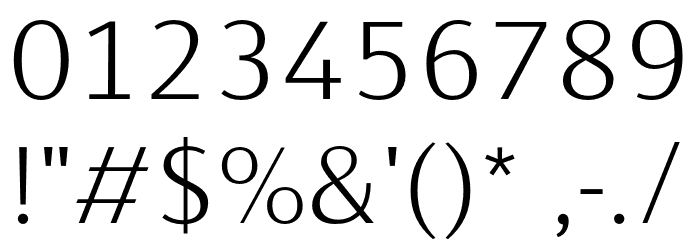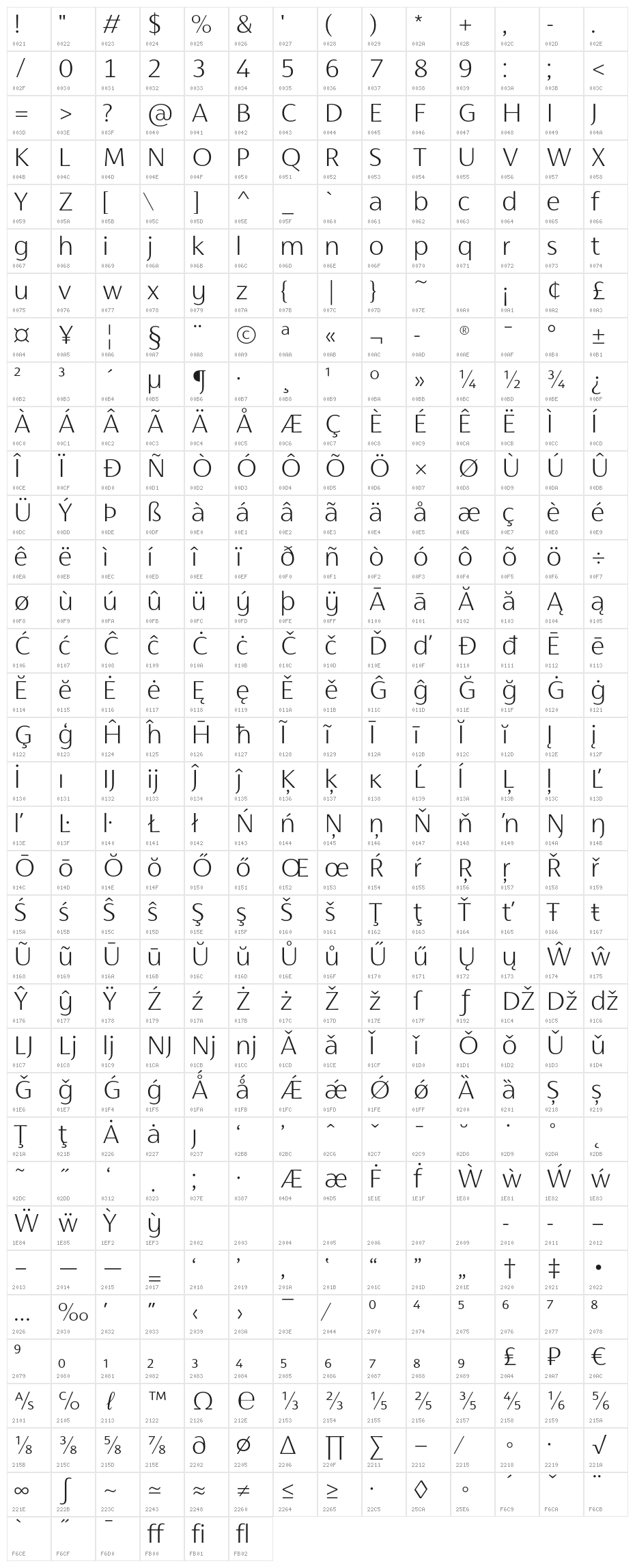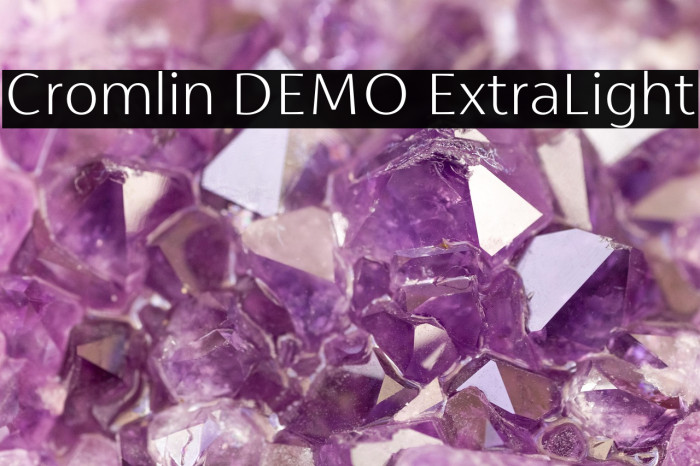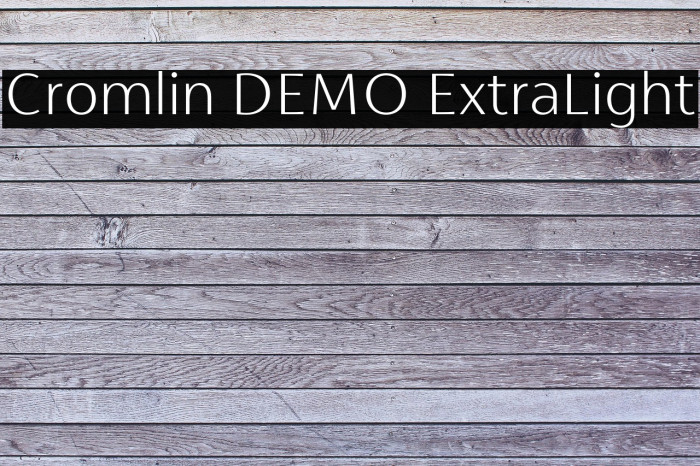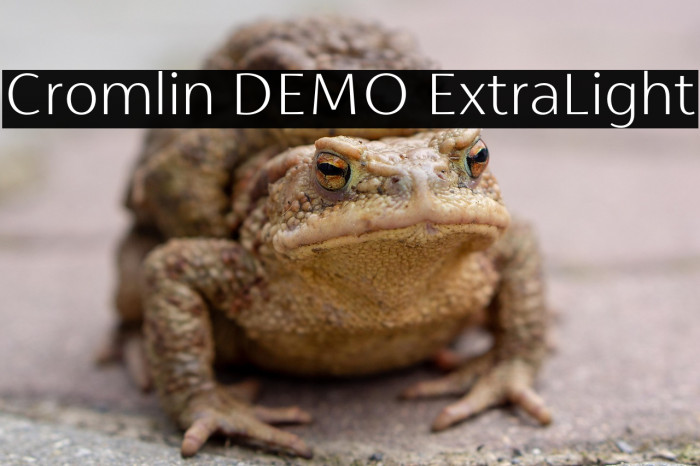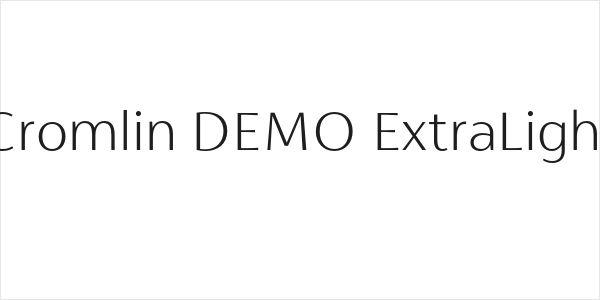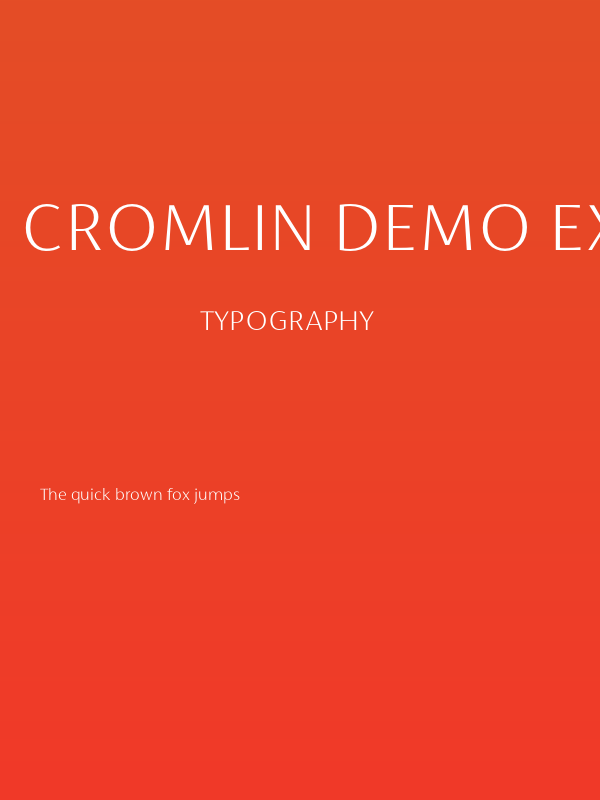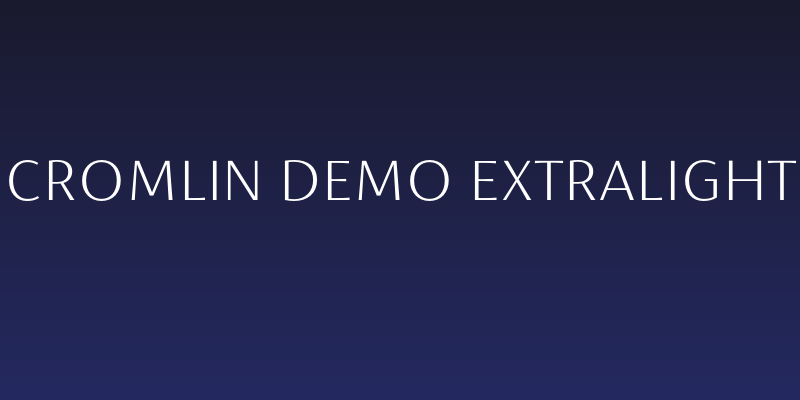
Cromlin DEMO ExtraLight Font
Cromlin DEMO ExtraLight Description
This font features a clean and modern sans-serif design with an extra light weight, offering a sleek and minimalistic appearance. The characters are well-proportioned with a consistent stroke width, providing a harmonious and balanced look. The uppercase and lowercase letters maintain a uniform style, enhancing readability. The numerals and special characters are designed with the same attention to detail, ensuring they complement the overall aesthetic. This font is versatile, making it suitable for various design applications where clarity and elegance are desired.
| Proposed Projects | Ideal for branding, editorial design, web design, and corporate materials where a modern and elegant look is required. |